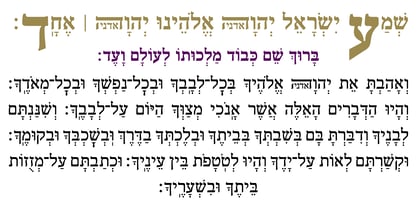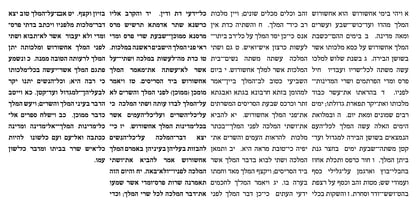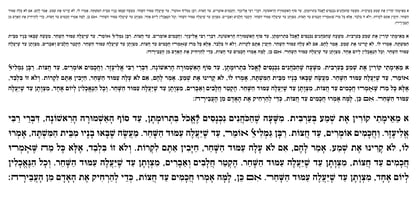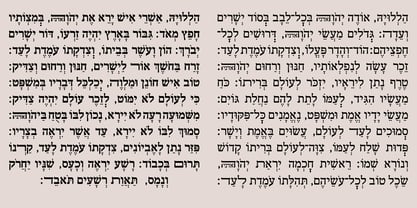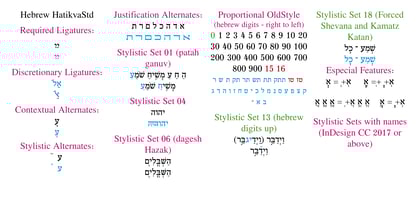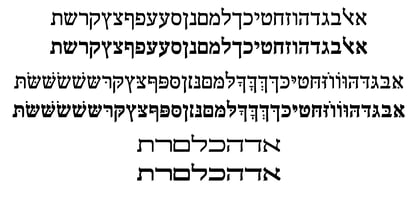
Hebrew Hatikva Std
The Hebrew Hatikva Std Font Family was designed by Sami Artur Mandelbaum and published by Samtype. Hebrew Hatikva Std contains 2 styles and family package options. More about this family
This is a modern, wonderful, and beautiful font.
This font is super readable and can be used from Posters to a Siddur
The readability of this font is amazing.
This font has the modern Hebrew punctuation: Shevana, Kamatz Katan, Dagesh Hazak, and Cholam Chaser.